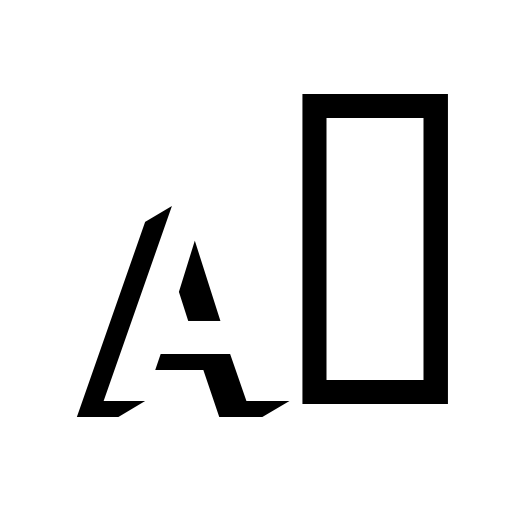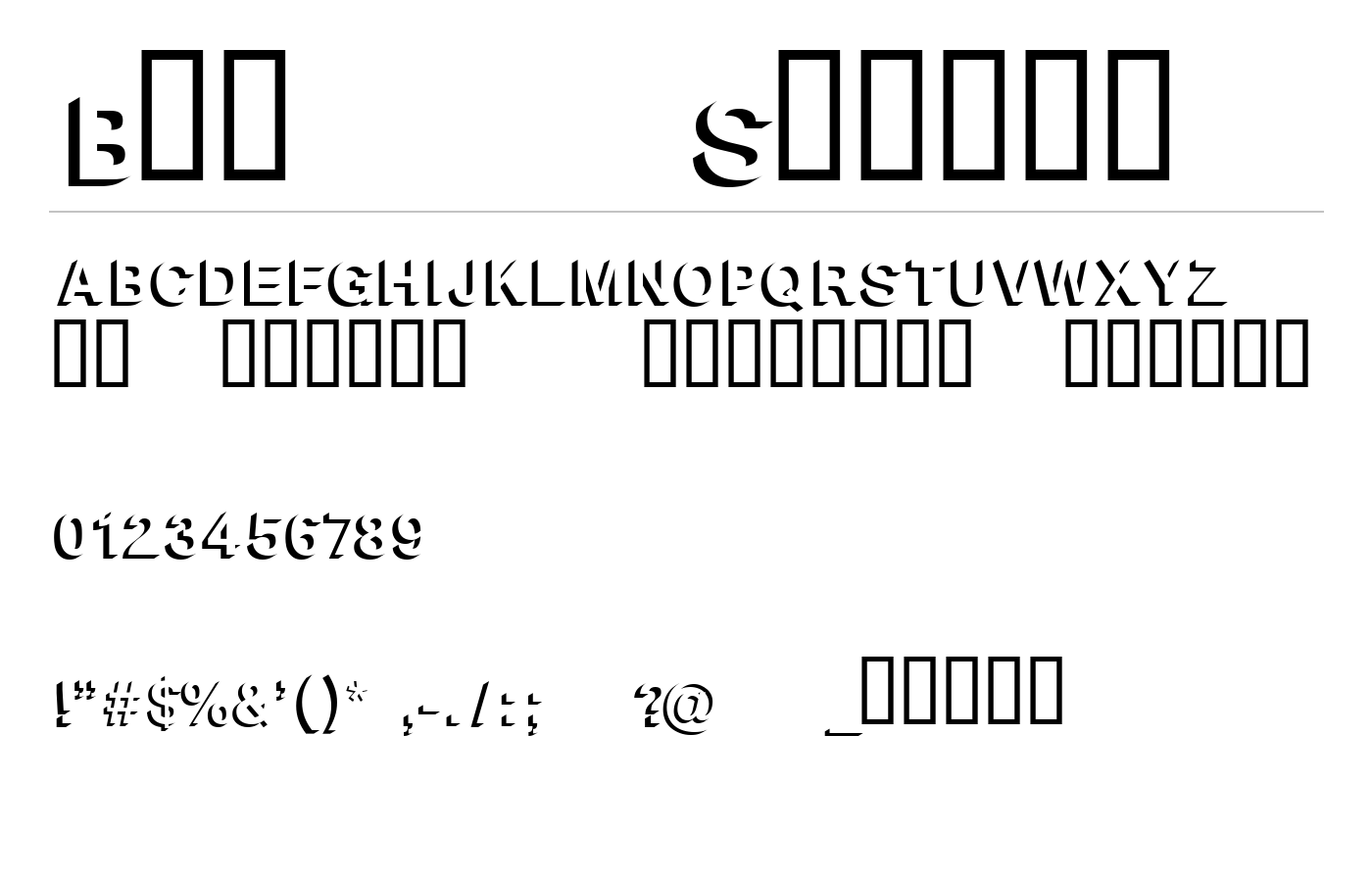
Block Shadow Font is a bold and distinctive serif typeface with a strong geometric influence, characterized by its sharp, high-contrast strokes and unique shadowed block design that adds depth and visual interest. This font exudes a vintage yet modern feel, making it an excellent choice for attention-grabbing headlines, logos, and branding in creative and editorial projects where a dynamic, stylish impression is desired.
Block Shadow Font
About Block Shadow Font
| Font family | Block Shadow Font |
| Designer | Greg Hatch |